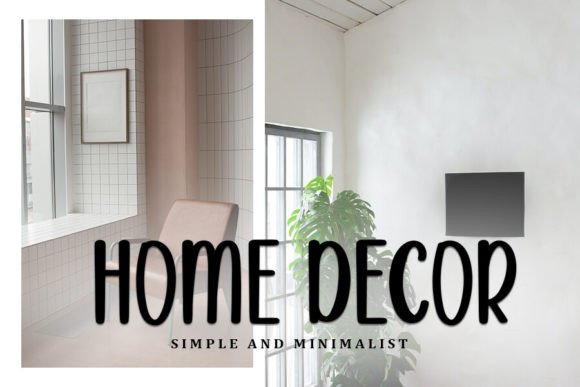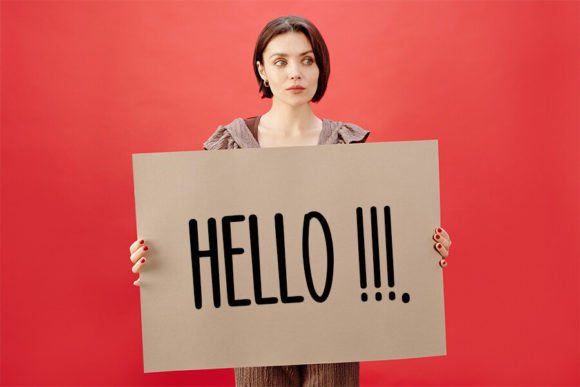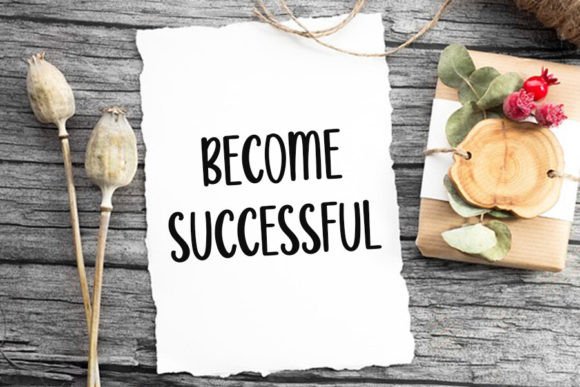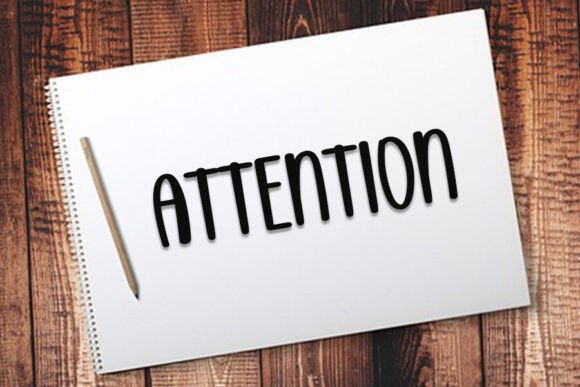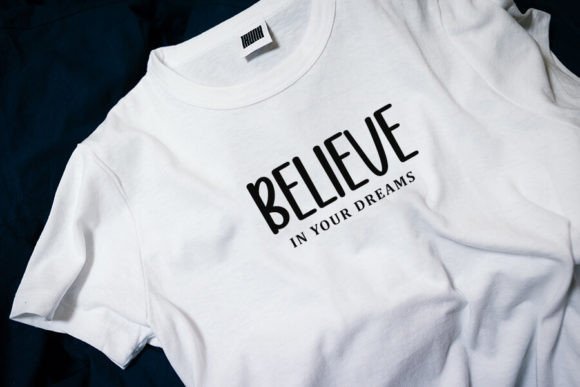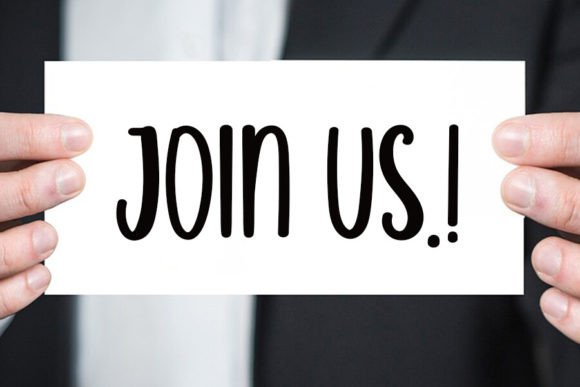
The Amazing School Font: A Designer’s New Best Friend
I’ll never forget the time I was working on a project for a client’s school branding, and I just couldn’t find the right font. I scrolled through page after page of Google Fonts, tried out a few popular ones, but nothing seemed quite right. That’s when I stumbled upon the Amazing School font, and let me tell you, it was love at first sight! 💕
This stylish handwritten font has a contemporary atmosphere and impeccable form, inspired by timeless classic calligraphy. It’s balanced, varied, and designed to enhance the beauty of your projects. In this article, I’ll share my experience with Amazing School, its features, and how to make the most of it in your designs.
- ✨ Beautifully crafted glyphs and ligatures: The attention to detail in this font is impressive, making it perfect for projects where you want to add a personal touch.
- 💫 Contemporary yet classic feel: This font strikes the perfect balance between modern and timeless, making it versatile for various design projects.
While Amazing School is an excellent font, there are a few things to keep in mind:
- ⚠️ Some characters may require manual adjustment: Depending on the project, you might need to tweak certain characters to ensure optimal spacing and alignment.
The Story Behind Amazing School
According to the font’s creators, Amazing School was inspired by the timeless beauty of classic calligraphy. They aimed to craft a font that would bring a touch of elegance and sophistication to any project, while still feeling approachable and modern. The result is a stunning handwritten font that’s both versatile and visually appealing.
Q: Is Amazing School suitable for body text or long-form content?
A: While Amazing School is a beautiful font, it’s primarily designed for titles, headings, and short-form content. For body text or long-form content, you may want to consider a more readable font to ensure optimal legibility.